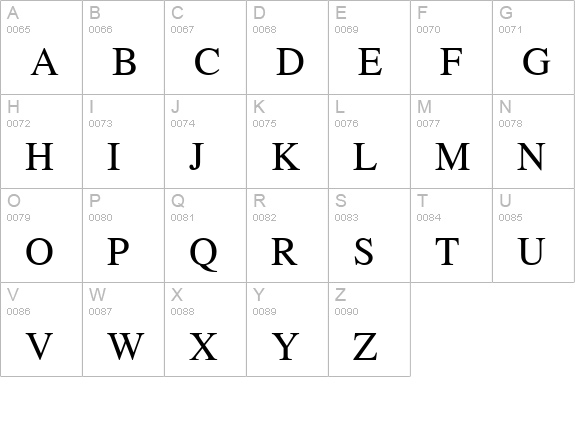
Greco SSi Roman font is a classic serif typeface that exudes elegance and sophistication. With its clean lines and timeless design, this font is perfect for a wide range of projects, from branding to editorial design. The Greco SSi Roman font is versatile and easy to read, making it a great choice for both print and digital applications. The best part is that this stunning font is available for free download at FontsMarket.com. Whether you're a designer looking to add a touch of sophistication to your work or a business owner in need of a refined font for your branding, Greco SSi Roman is the perfect choice. Download it today and elevate your projects with this beautiful typeface.